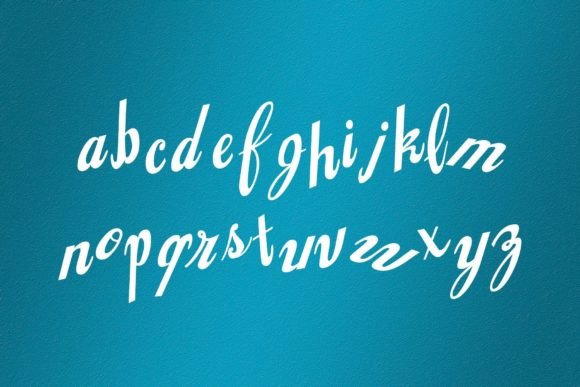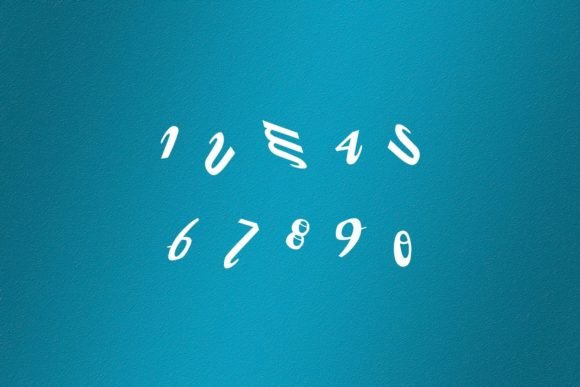
About Lazydog Font
Introducing a one-of-a-kind handwritten font, characterized by its natural and distinctive style, making it the perfect choice for your design projects. Embrace the uniqueness and versatility of this font as it effortlessly enhances your creative endeavors.
The natural style of this font adds an authentic and organic touch to your designs. Whether you’re working on logos, branding, invitations, or any creative project, the uniqueness of this handwritten font brings a special character to your text, setting it apart from the ordinary.
This font is a valuable addition to your design toolkit, allowing you to infuse your projects with a touch of individuality and creativity. Its versatile nature ensures it can seamlessly integrate into various design contexts, providing you with the freedom to express your artistic vision.
Consider this unique handwritten font as a design asset that adds a distinctive flair to your creations. Let its natural style become the signature touch that sets your projects apart, making them memorable and visually striking. Embrace the beauty of individuality and make this font an essential element in your creative toolkit.